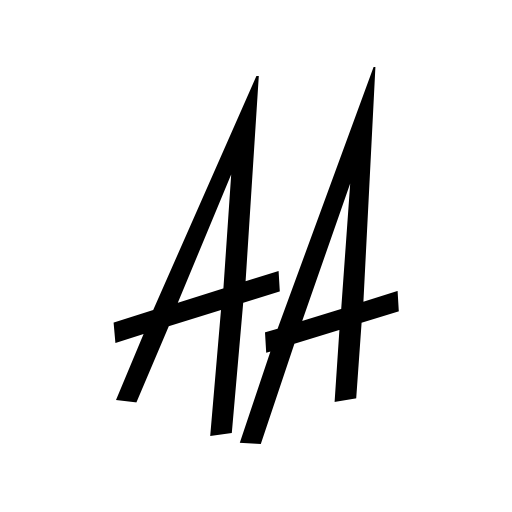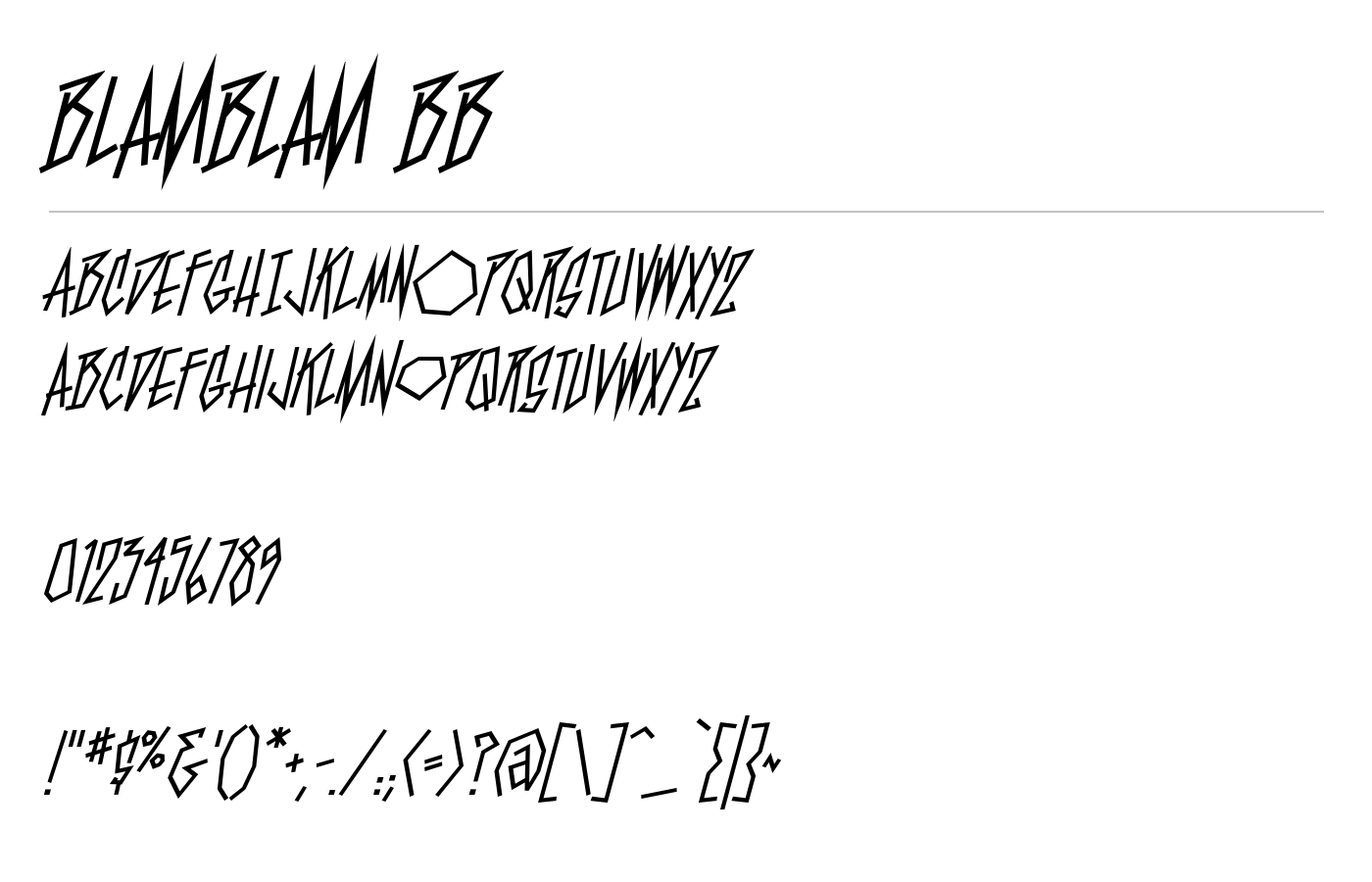
BlamBlam BB is an energetic, condensed sans serif font with sharp, angular strokes and a hand-drawn, comic-inspired style. Its tall, narrow letterforms and striking irregular shapes give it a dynamic, edgy personality perfect for bold headlines, posters, or branding that seeks a playful yet intense vibe. This font stands out in creative projects where a sense of movement and individuality is key.
BlamBlam BB Font
About BlamBlam BB Font
| Font family | BlamBlam BB Font |
| Designer | Nate Piekos |